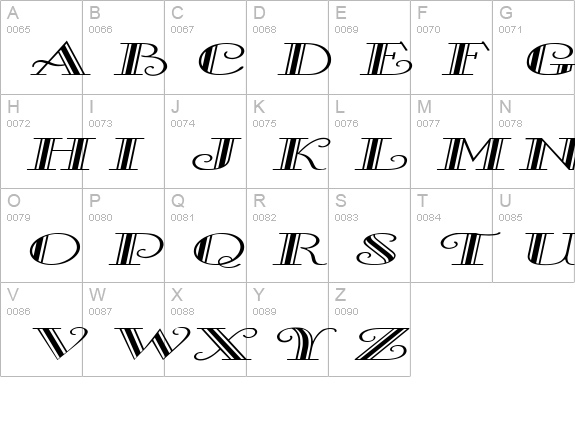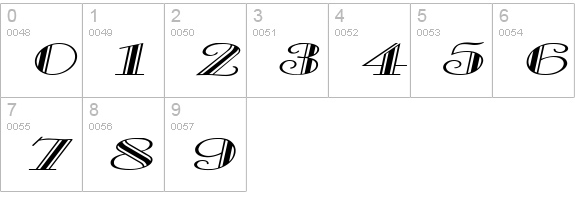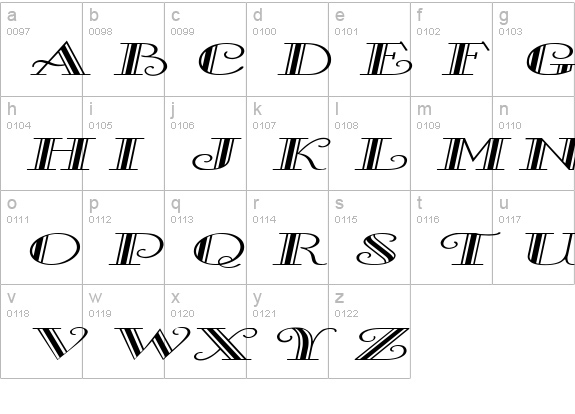
Gallery Wide Italic is a distinctive, extended-width, italic variant in the Gallery typeface family \xE2\x80\x94 well suited to design and typography projects.
Introducing Gallery Wide Italic, a stunning and sophisticated font that effortlessly captures attention with its elegant and elongated letterforms. This typeface exudes a sense of boldness and finesse, making it the perfect choice for any design project that seeks to leave a lasting impression. With its wide and slanted characters, Gallery Wide Italic adds a touch of modernity and uniqueness to any text or headline. Whether used for branding, advertising, or editorial purposes, this font delivers a distinct visual impact that commands attention. One of the most enticing aspects of Gallery Wide Italic is that it is freely available to download at FontsMarket.com. This means that designers and creatives can access this exceptional font without any cost, making it an invaluable resource for those who seek quality and style without breaking the bank. Crafted with meticulous attention to detail, Gallery Wide Italic offers a seamless blend of sophistication and versatility. Its subtle curves and clean lines create a harmonious balance that enhances legibility while maintaining an air of artistic flair. This font is a true reflection of modern design trends, effortlessly combining the traditional elegance of italic letterforms with a contemporary twist. It is the perfect choice for projects that require a touch of sophistication and a hint of drama. Whether used in print or digital media, Gallery Wide Italic will elevate any design to new heights of visual appeal. Its versatile nature allows it to be used across a wide range of applications, from logos and branding materials to headlines, posters, and invitations. Embrace the freedom of creativity with Gallery Wide Italic. Download this exceptional font from FontsMarket.com and unlock a world of possibilities for your design projects. With its timeless elegance and effortless style, Gallery Wide Italic is sure to captivate and inspire audiences alike.